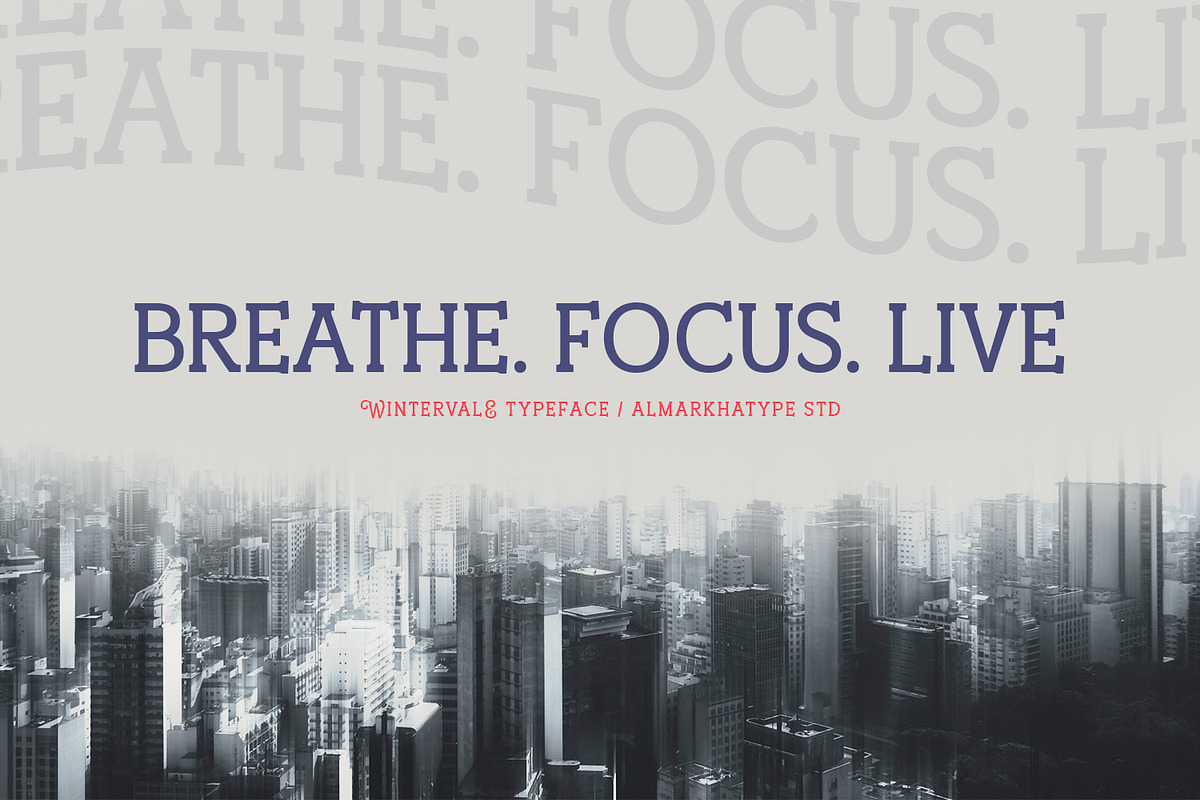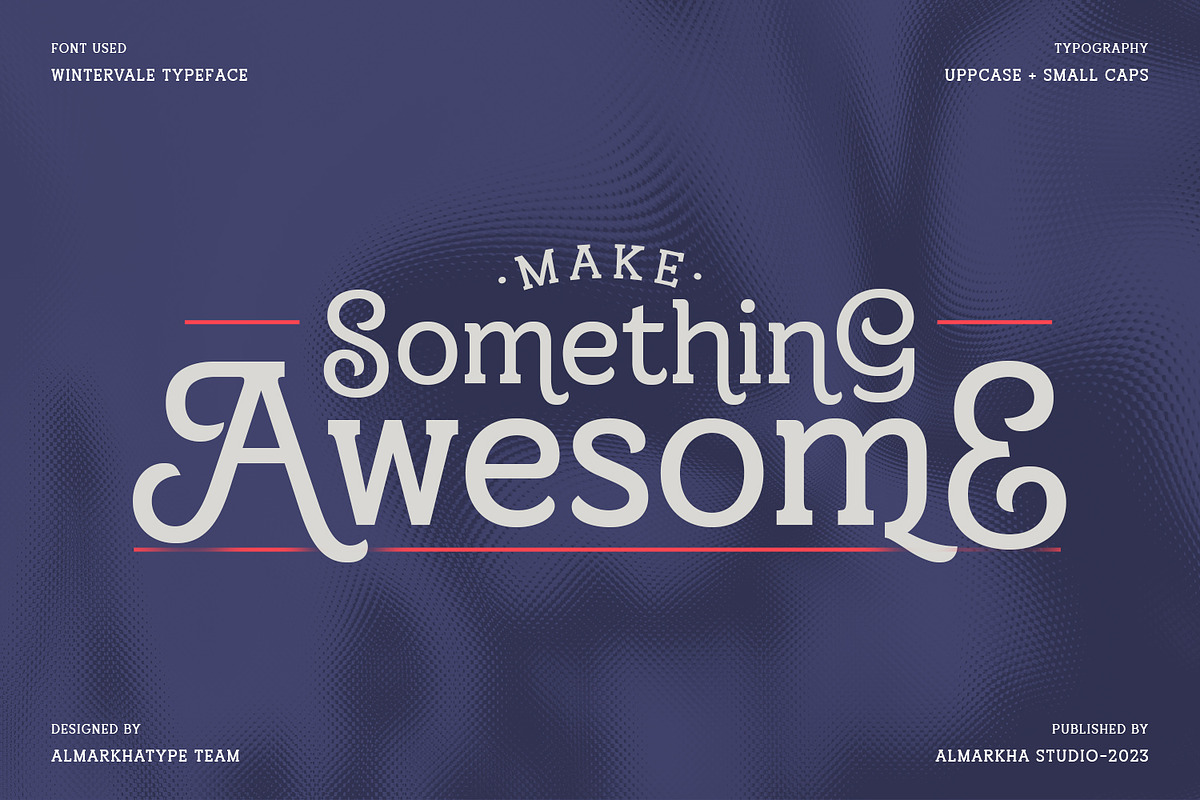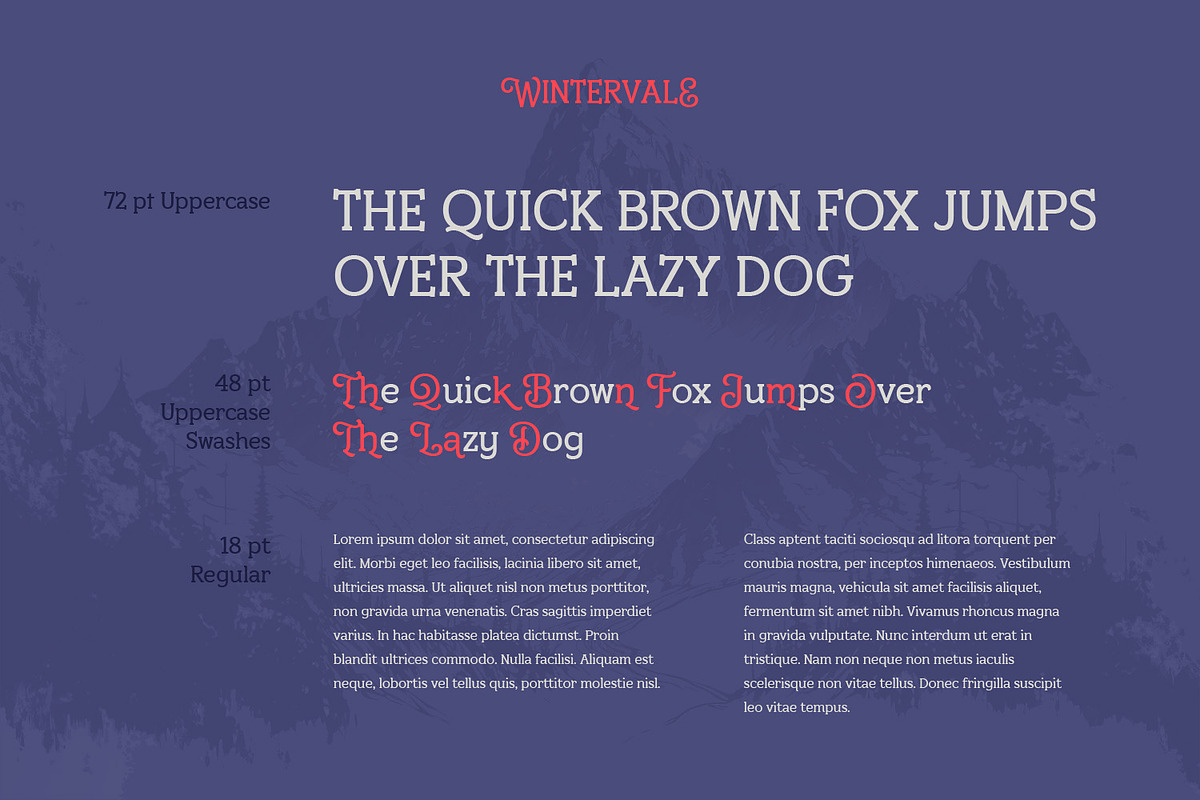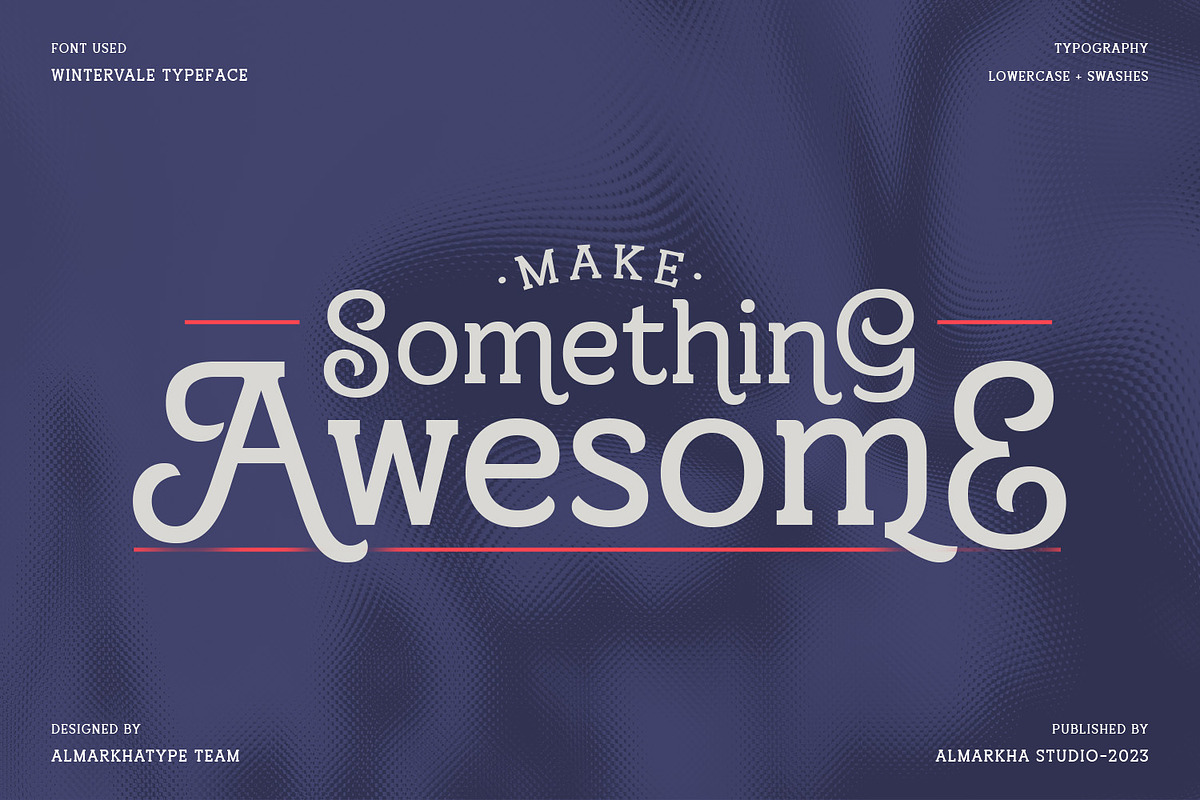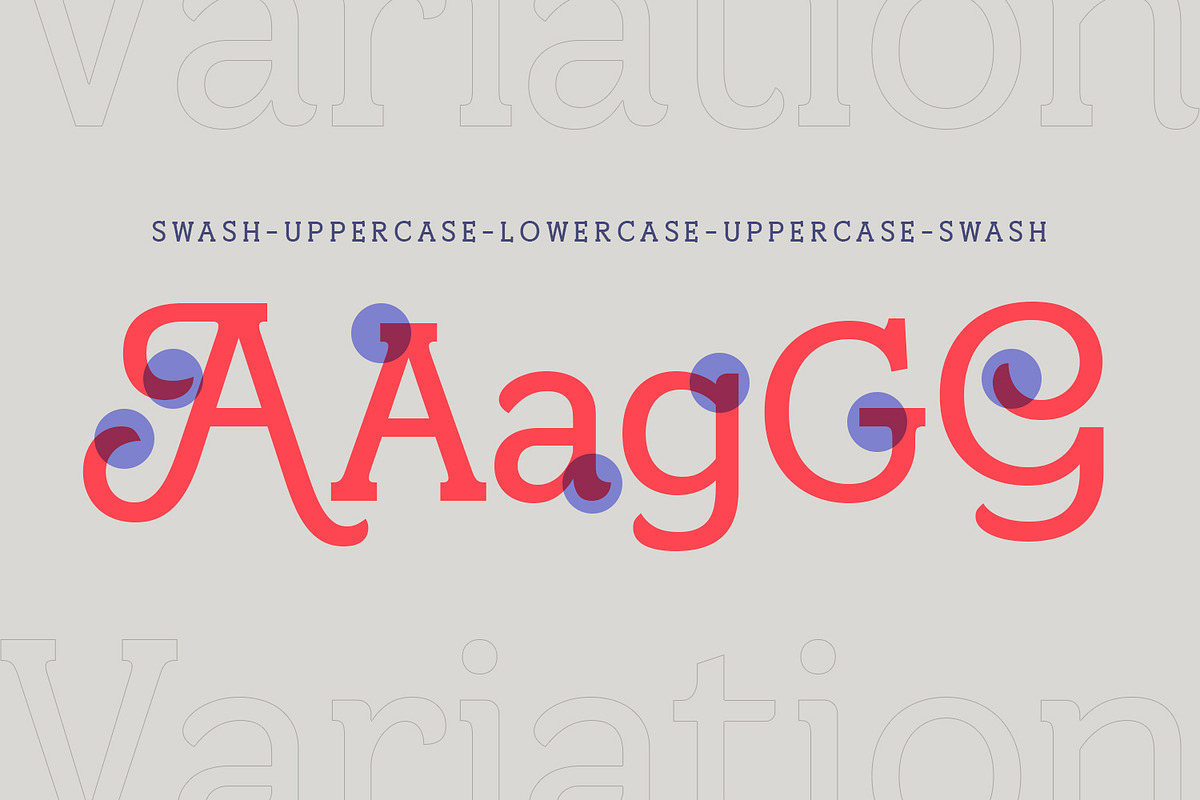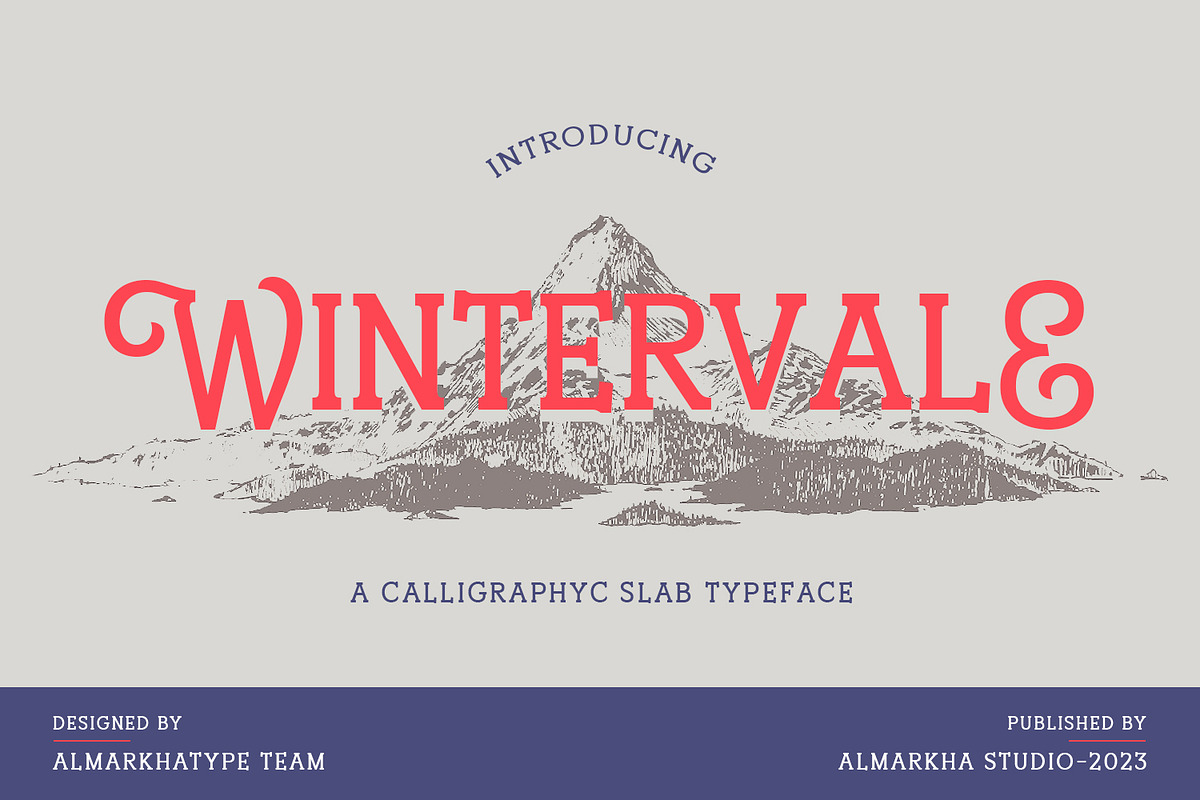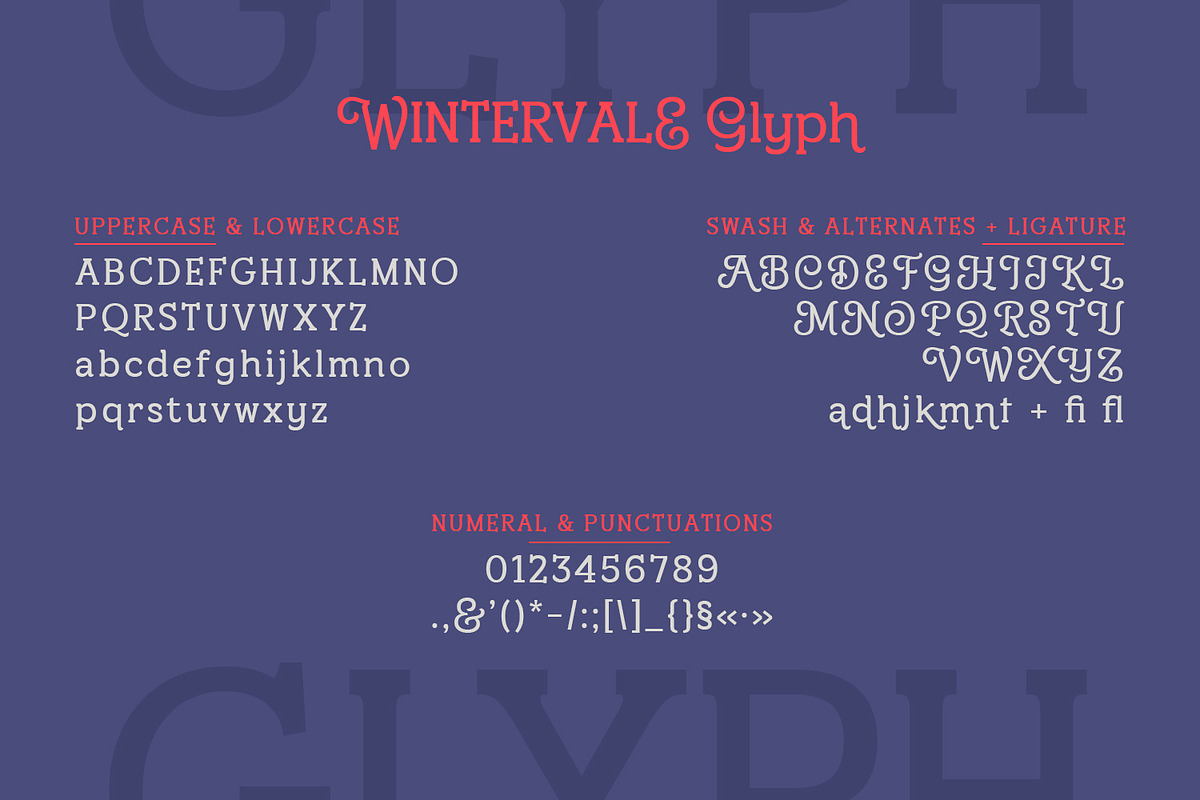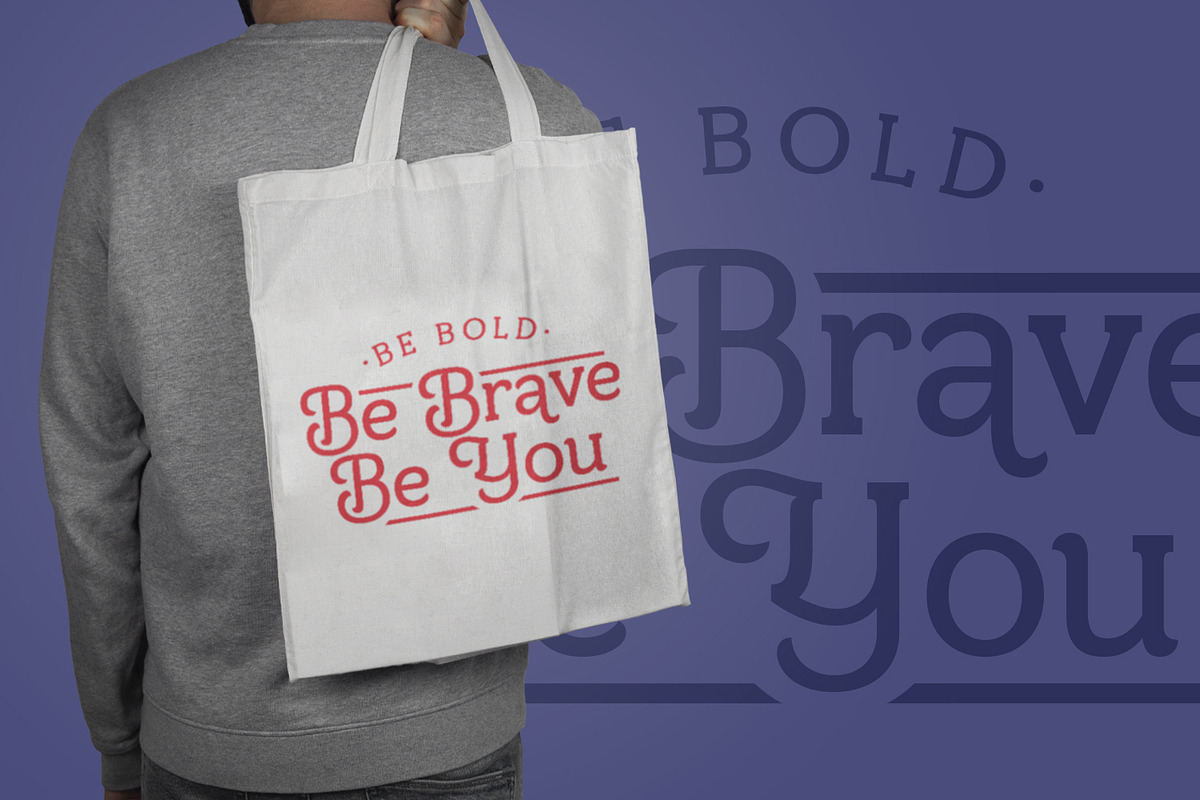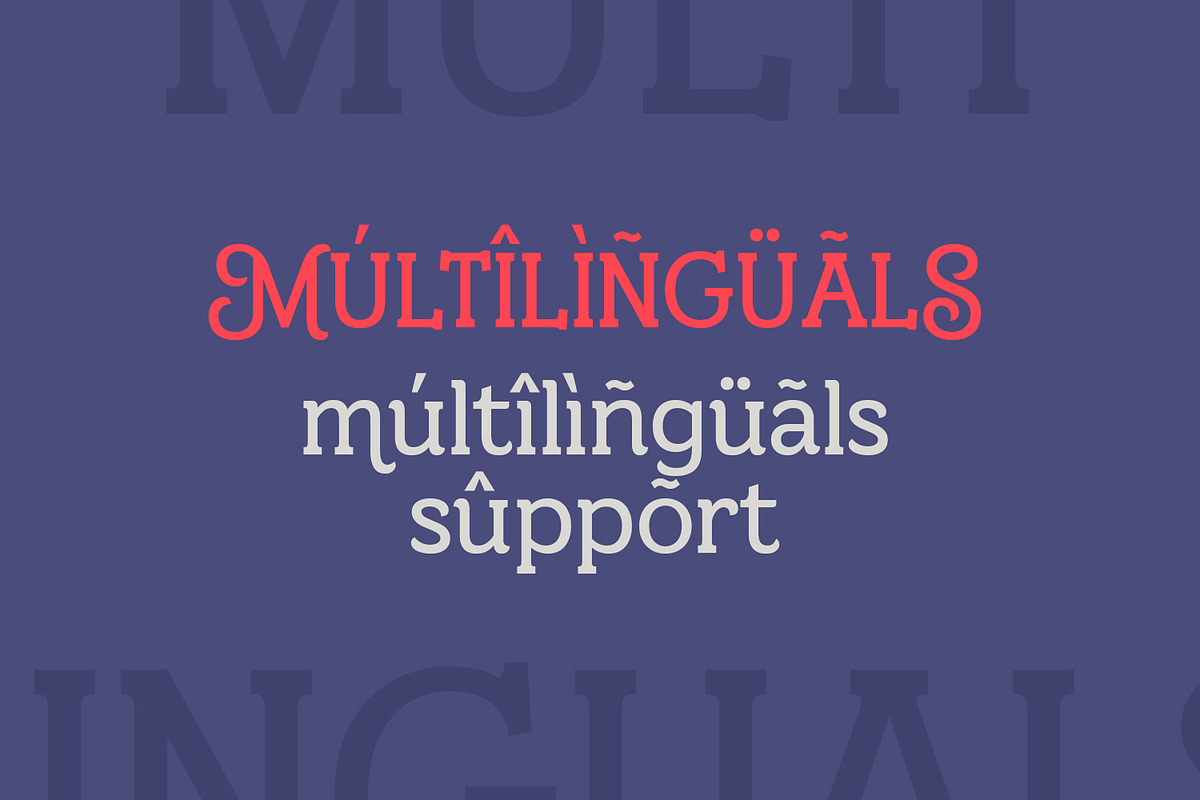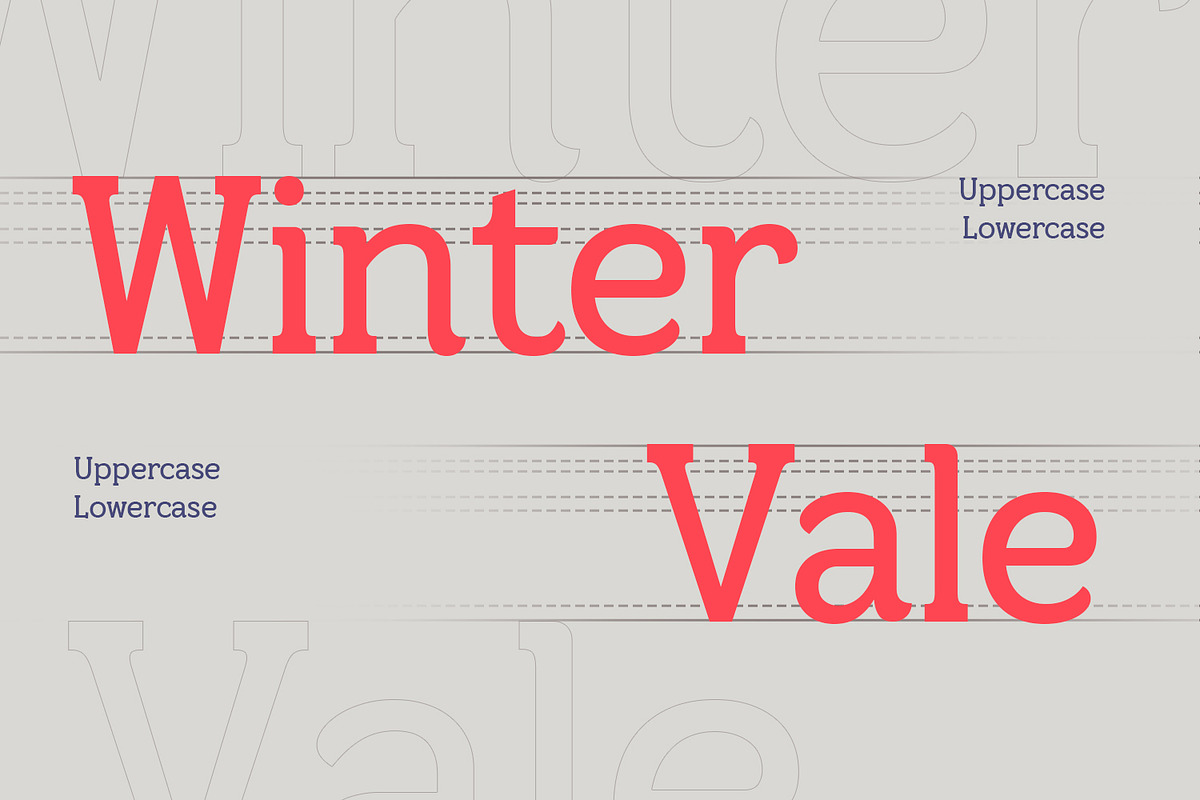
Wintervale – Stylistic Slab Serif
Introducing Wintervale, a stylistic slab serif font that beautifully combines retro and vintage nuances, complete with uppercase and lowercase swash alternates for added flair.
Wintervale exudes a timeless charm with its calligraphic serifs and subtle vintage touches, perfect for projects seeking a touch of classic elegance with a modern twist. Each letter is meticulously crafted to capture the essence of mid-century typography while maintaining a contemporary edge.
With its extensive language support, Wintervale is ideal for global projects, ensuring your designs resonate with audiences worldwide. Whether you’re creating posters, branding materials, editorial layouts, or packaging, this font’s versatility shines through.
Elevate your designs with Wintervale’s unique blend of retro and vintage aesthetics, where every character tells a story of classic sophistication. Experience the beauty of swash alternates and multilingual support, making Wintervale a must-have for designers seeking to infuse their work with timeless style.
- Ligatures glyphs
- Alternate glyphs